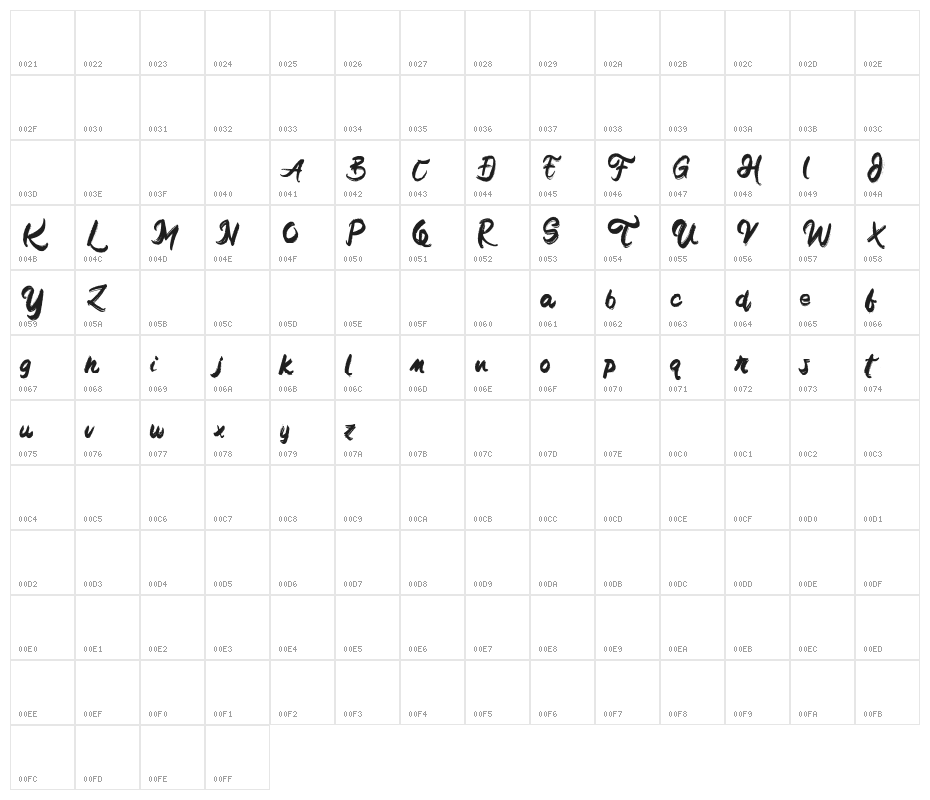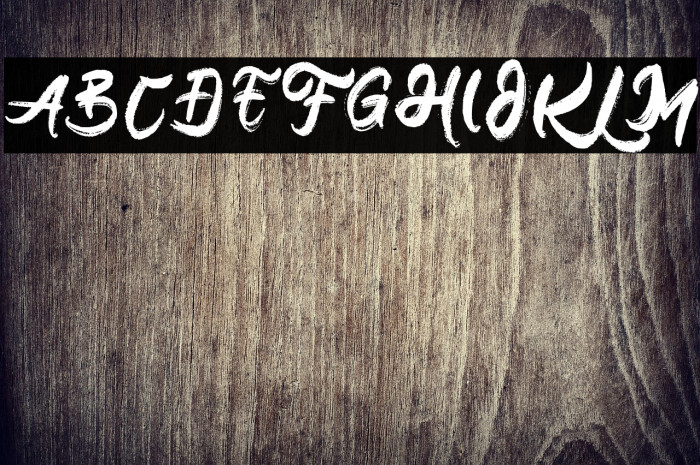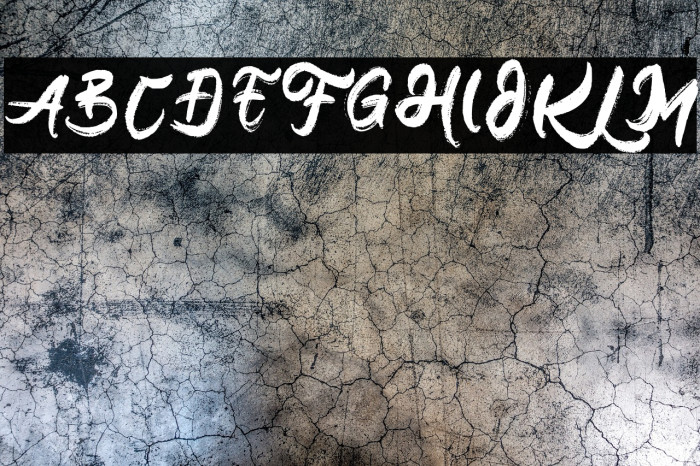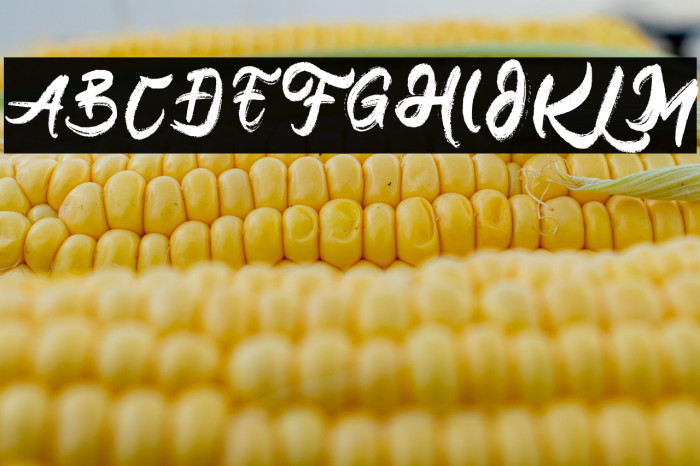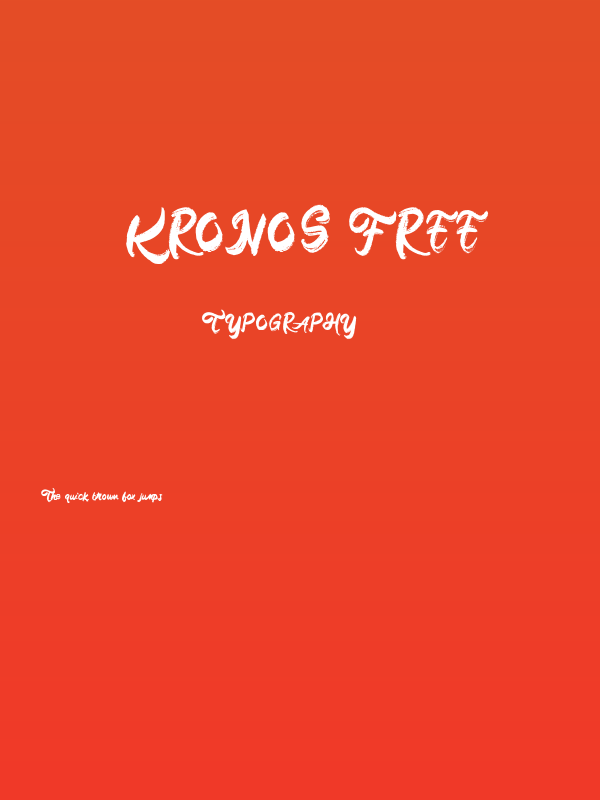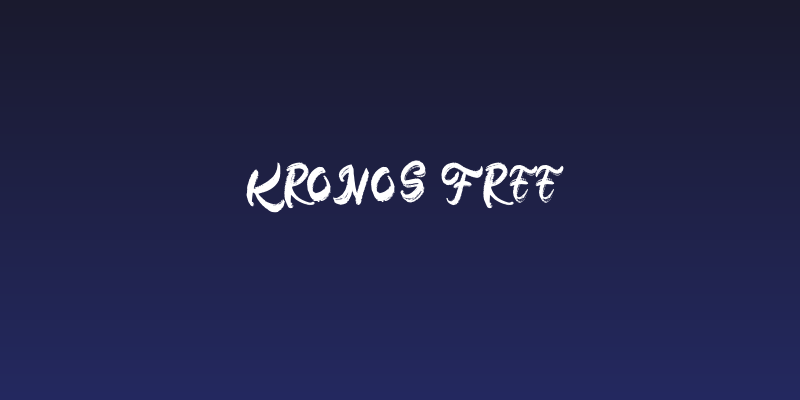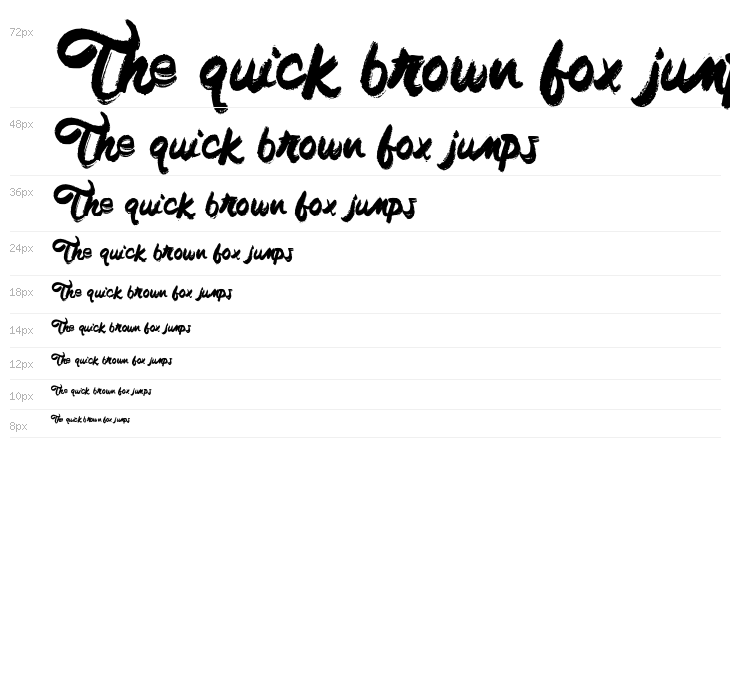
Kronos FREE Font
Kronos FREE Description
This font features a bold and expressive brush script style, characterized by its dynamic and fluid strokes. The letters have a hand-painted appearance, with varying thickness that adds a sense of movement and energy. The uppercase letters are particularly elaborate, with flourishes and swashes that enhance their decorative appeal. The lowercase letters maintain a consistent style, complementing the uppercase with a slightly more restrained design. This font's artistic flair makes it suitable for creative and eye-catching designs.
| Use Case | Logos, Headlines, Posters |
| Proposed Projects | Ideal for branding, posters, invitations, and any project requiring a creative and artistic touch. |